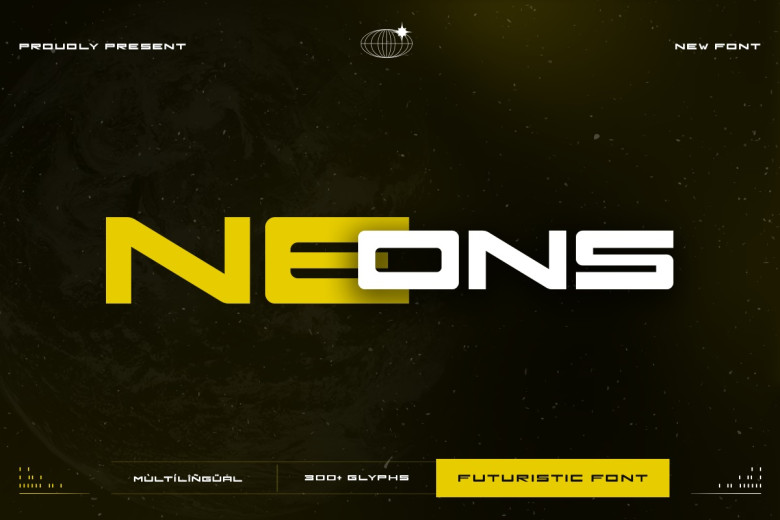
Neons Font
It is modern sans-serif typeface that perfect for futuristic design projects and gives your work an up-to-date style. Its clean geometric shapes and high-contrast look makes Neons suitable for sci-fi motifs, technology logos and icons, to digital and technological advertising. Despite its unique inimitability, this font conveys the portrayal of contemporary technology in the work done with its help.
Neons Sans Serif Font